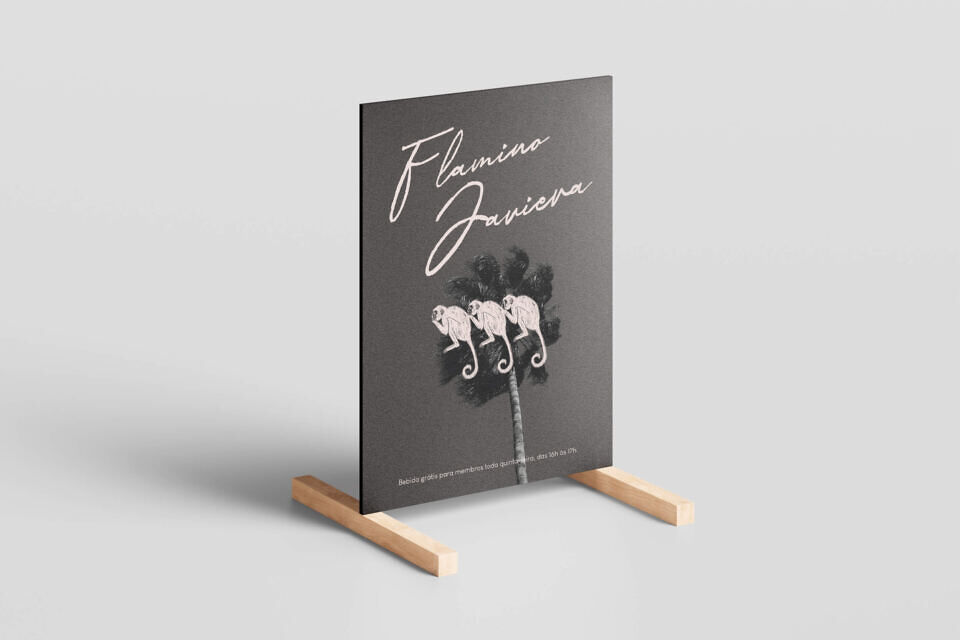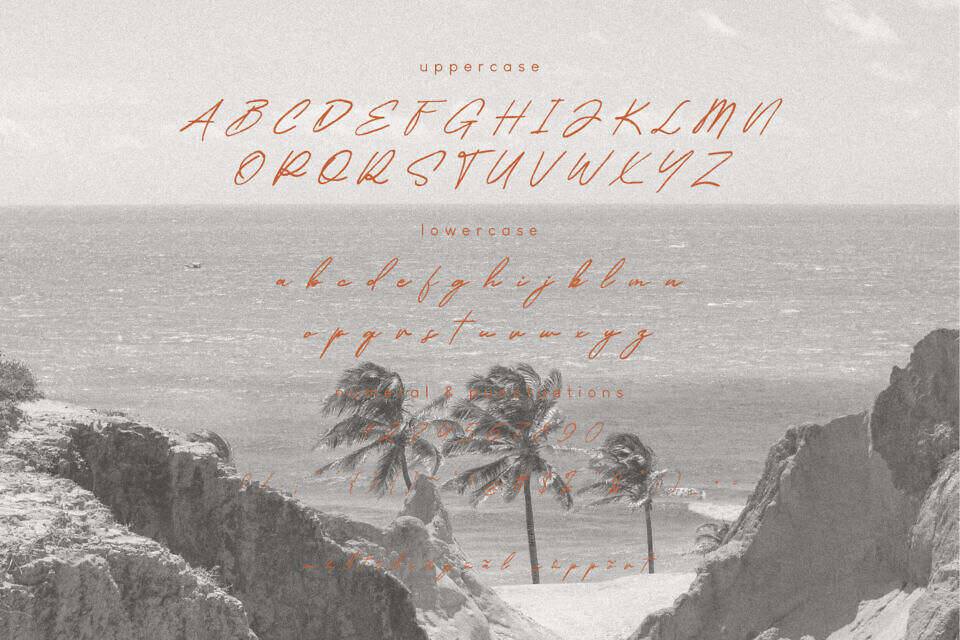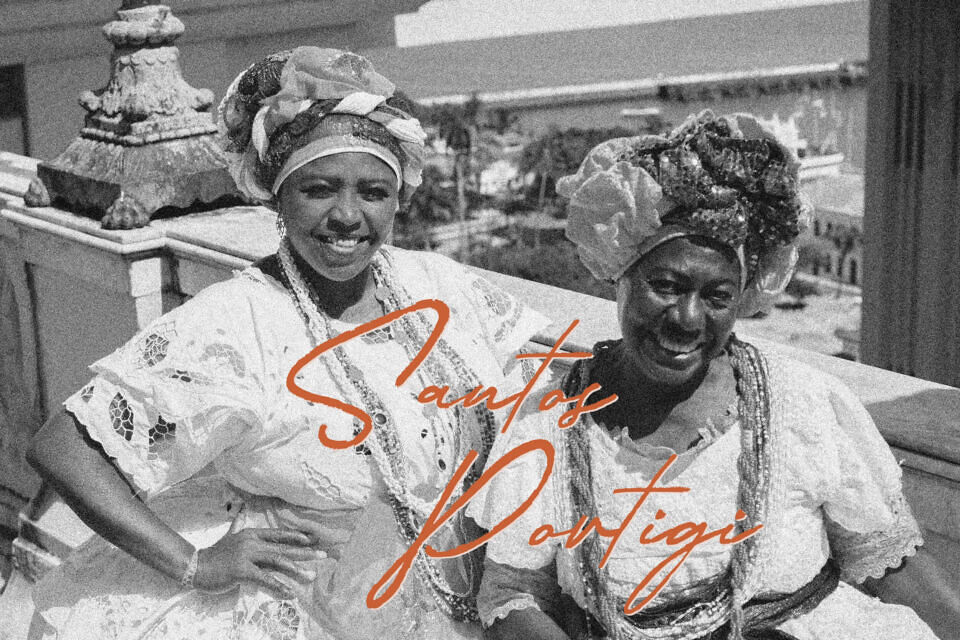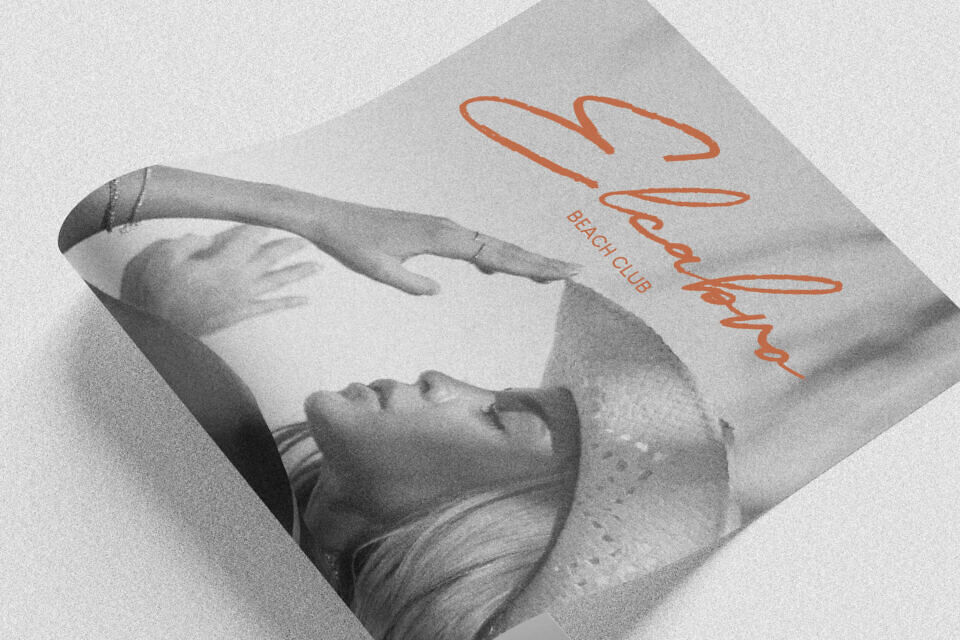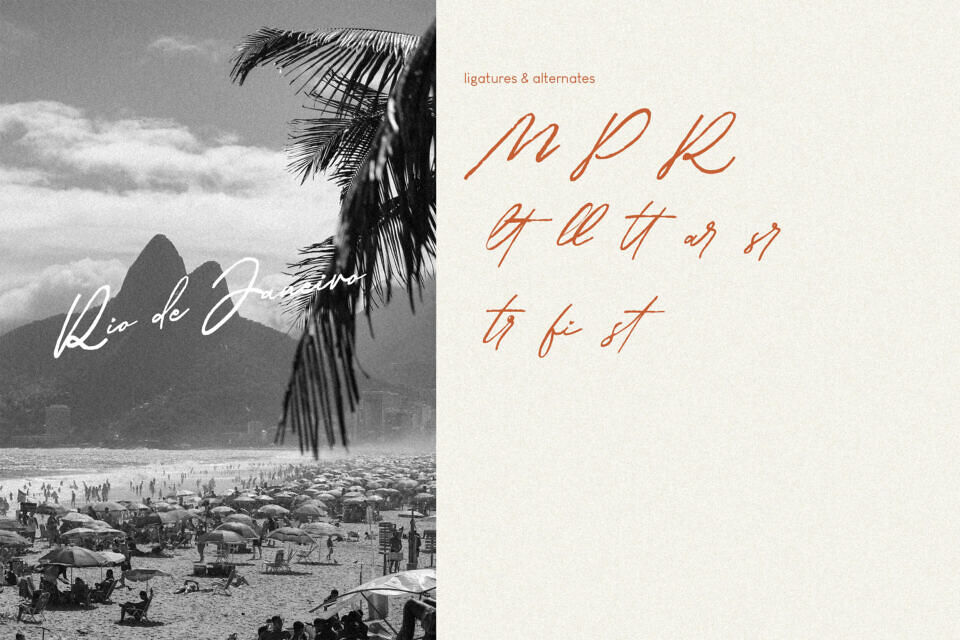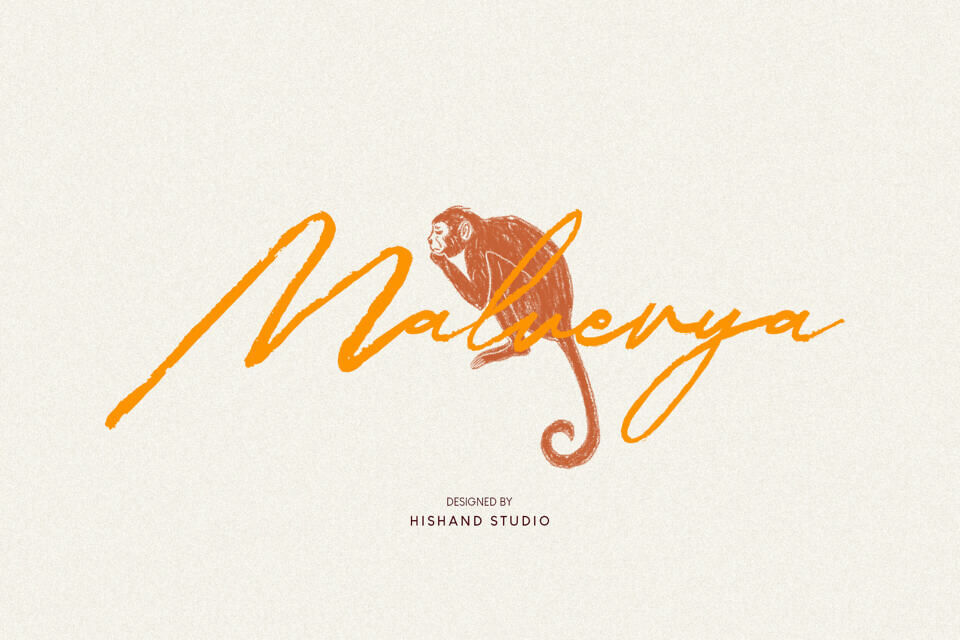
Malverya Font
Crafted with a delicate touch, the Malverya script font is a beautiful blend of timeless elegance and modern flair. Its aesthetic is defined by a fluid, handwritten style that mimics the effortless strokes of a brush, making each character feel uniquely personal and artistic.
The font’s signature aesthetic is characterized by its graceful, connecting letters and a delightful irregularity that adds to its authentic, organic feel. This isn’t just a font; it’s a piece of art that brings a human touch to any project.
Malverya is perfect for designs that demand a sense of handcrafted authenticity and sophistication. It lends itself beautifully to branding, logos, wedding invitations, and greeting cards, where a touch of warmth and personality is desired.